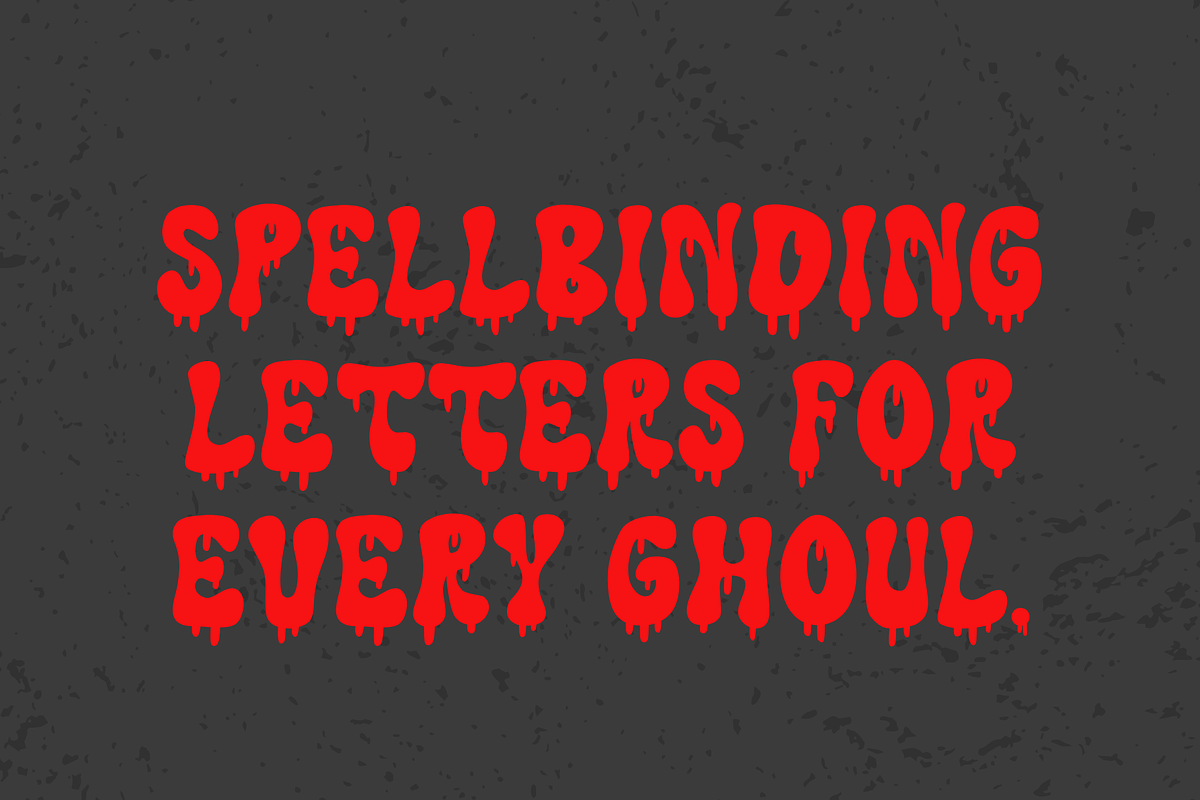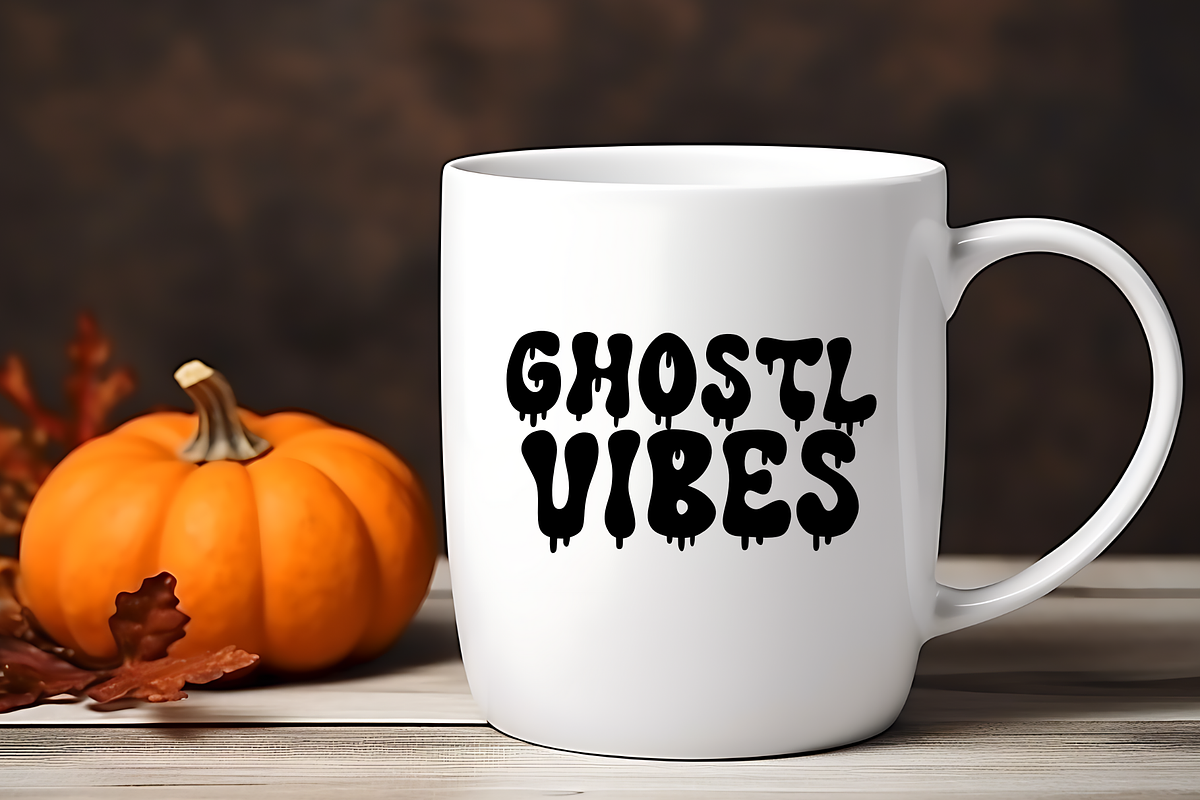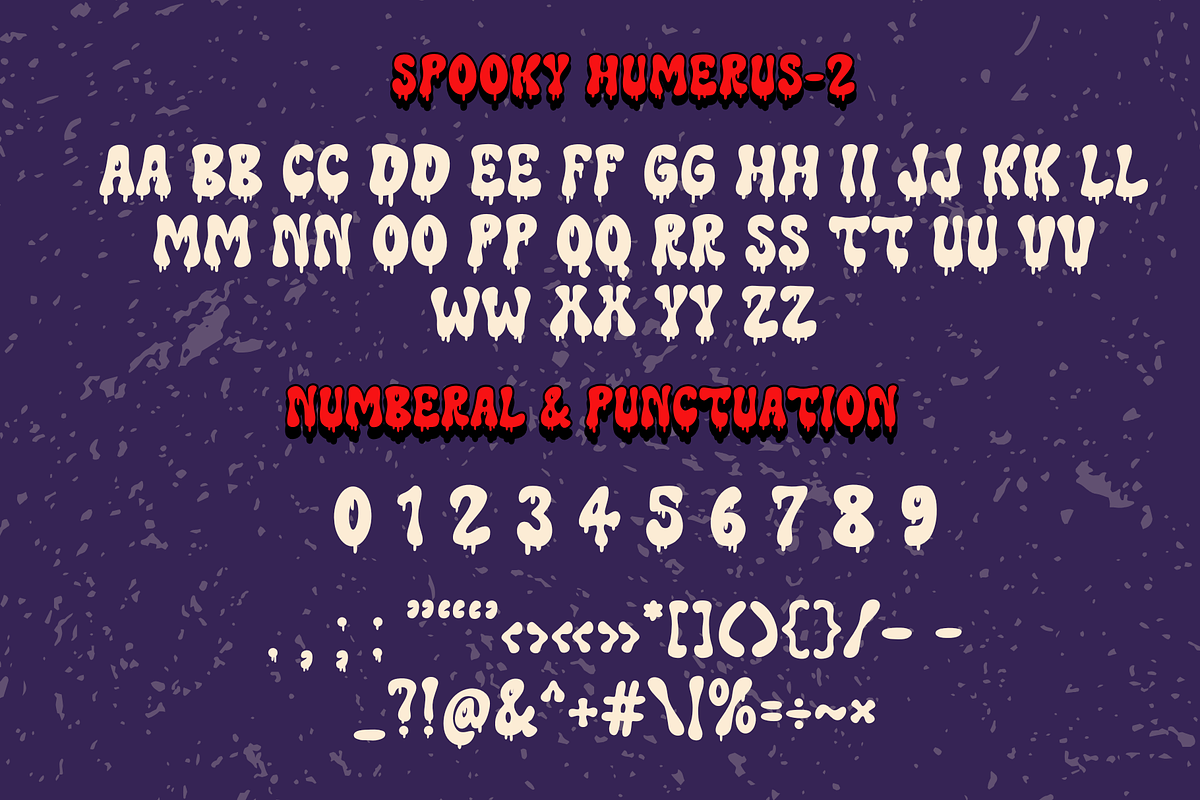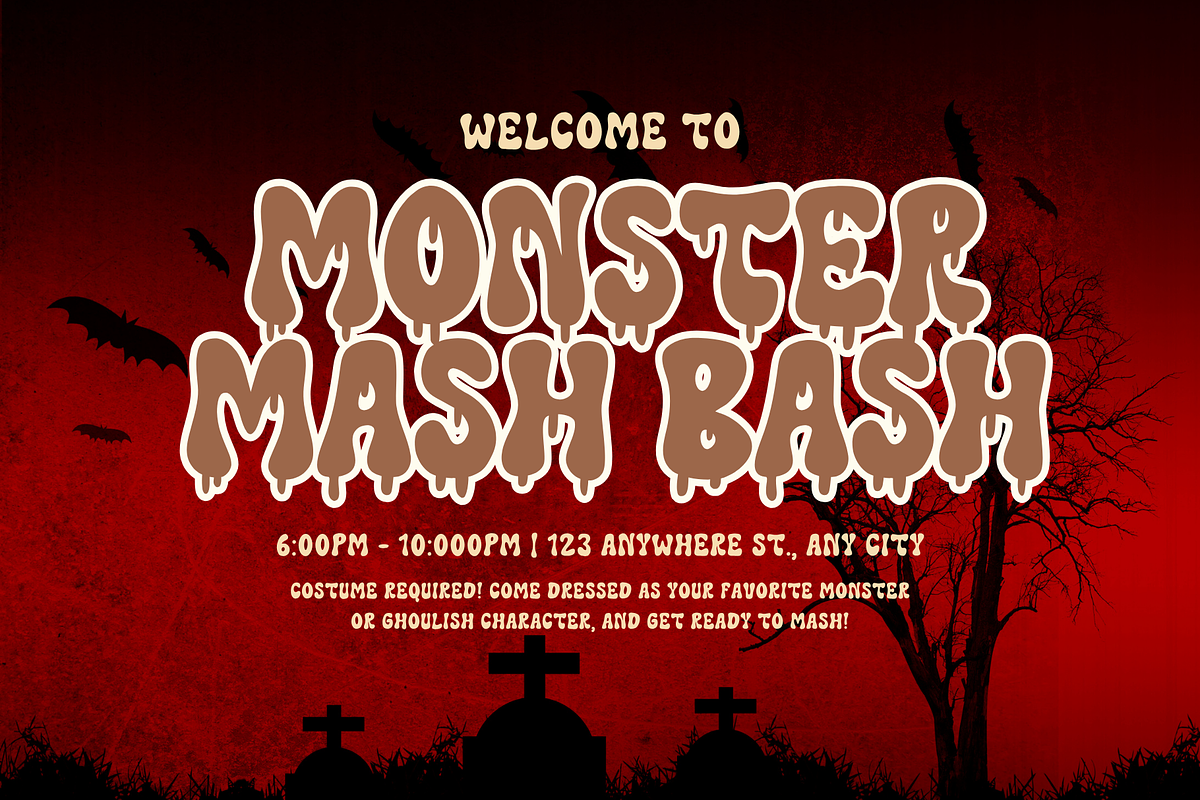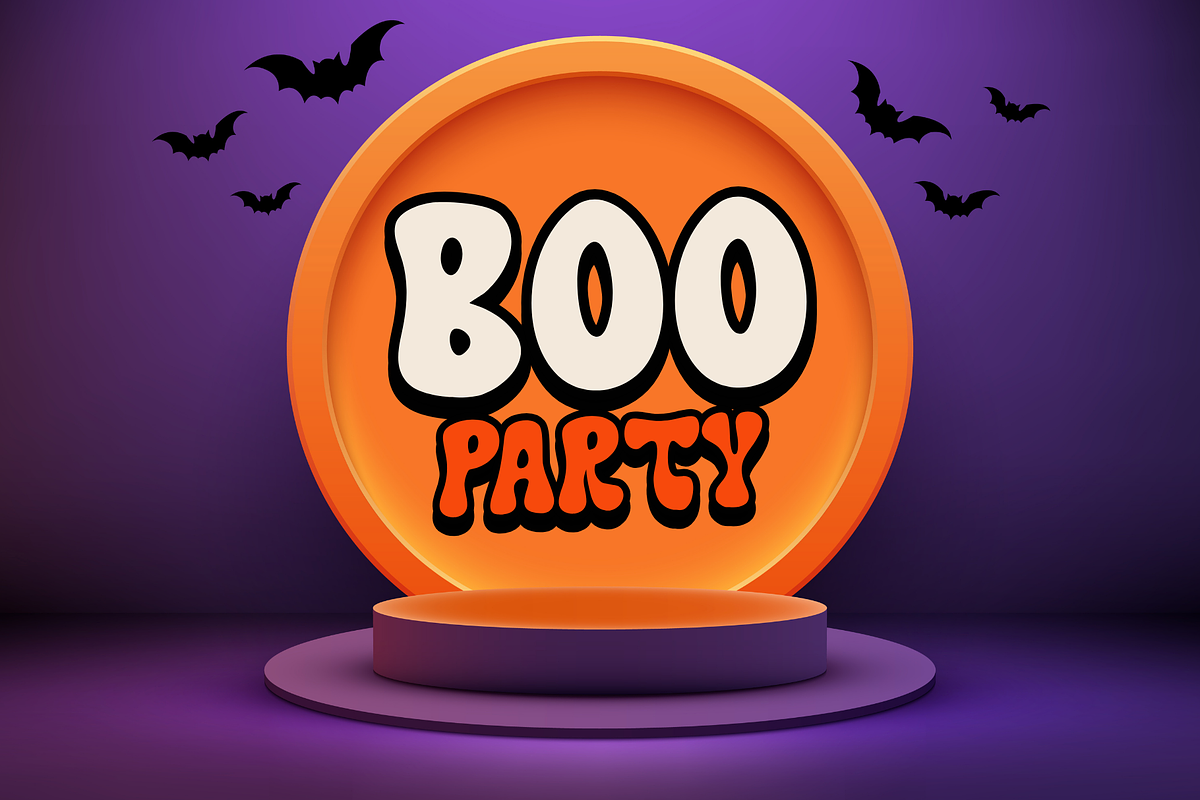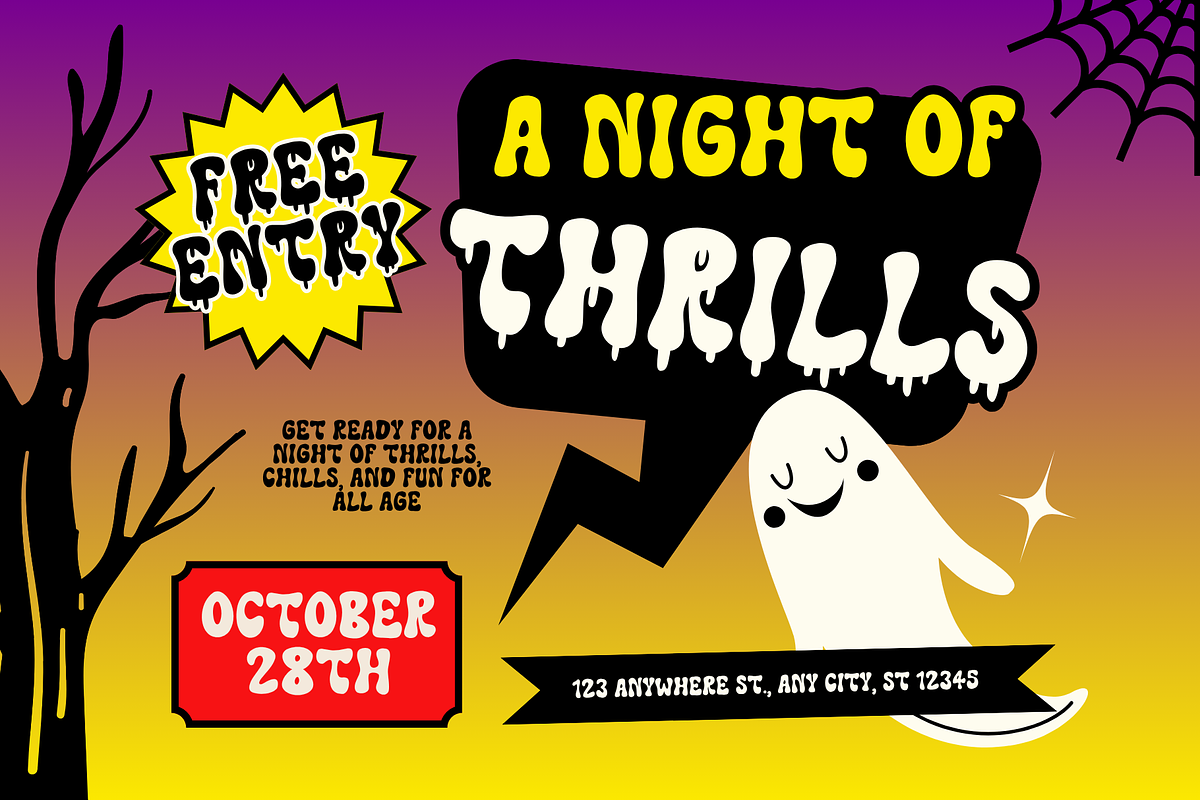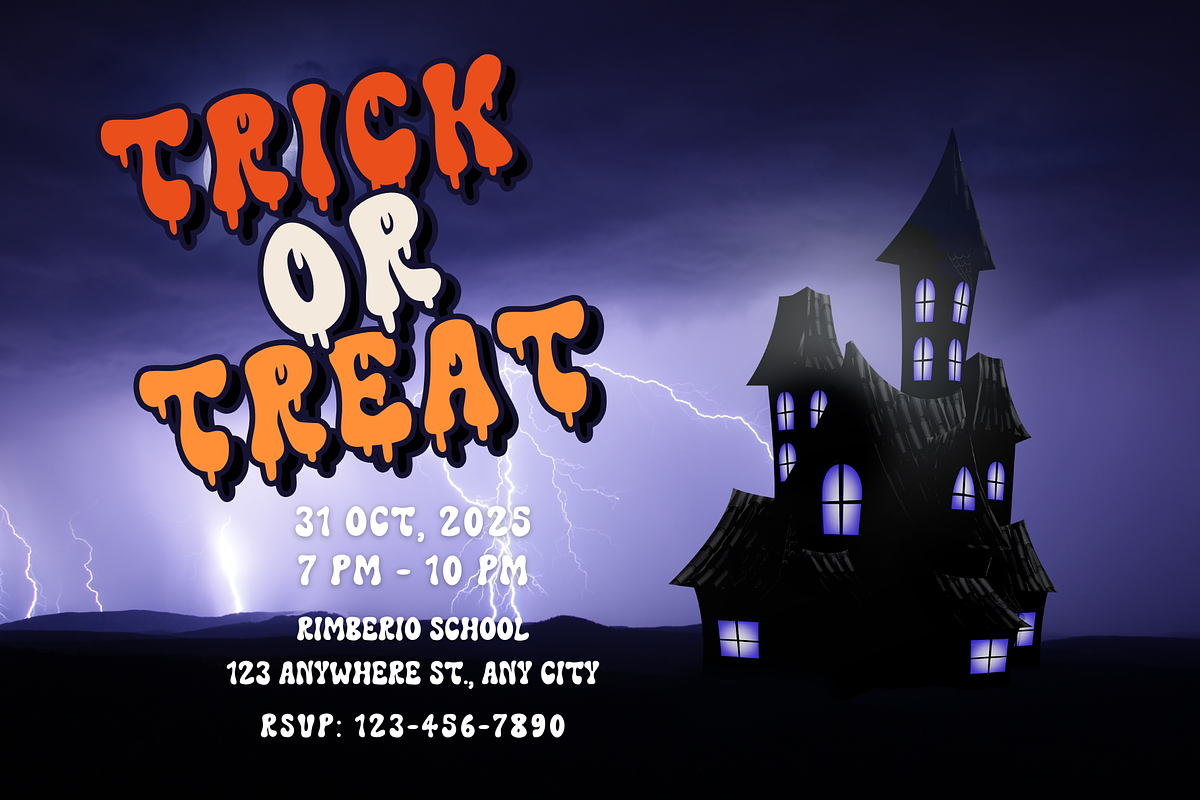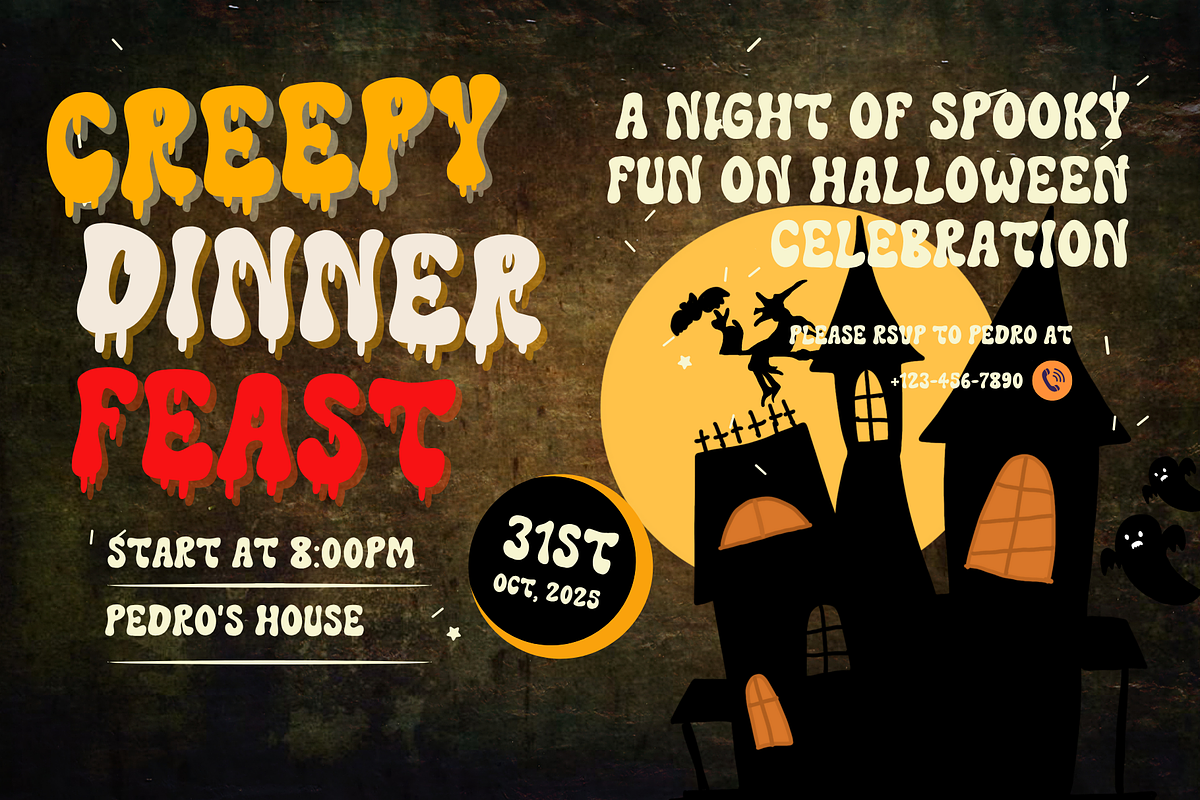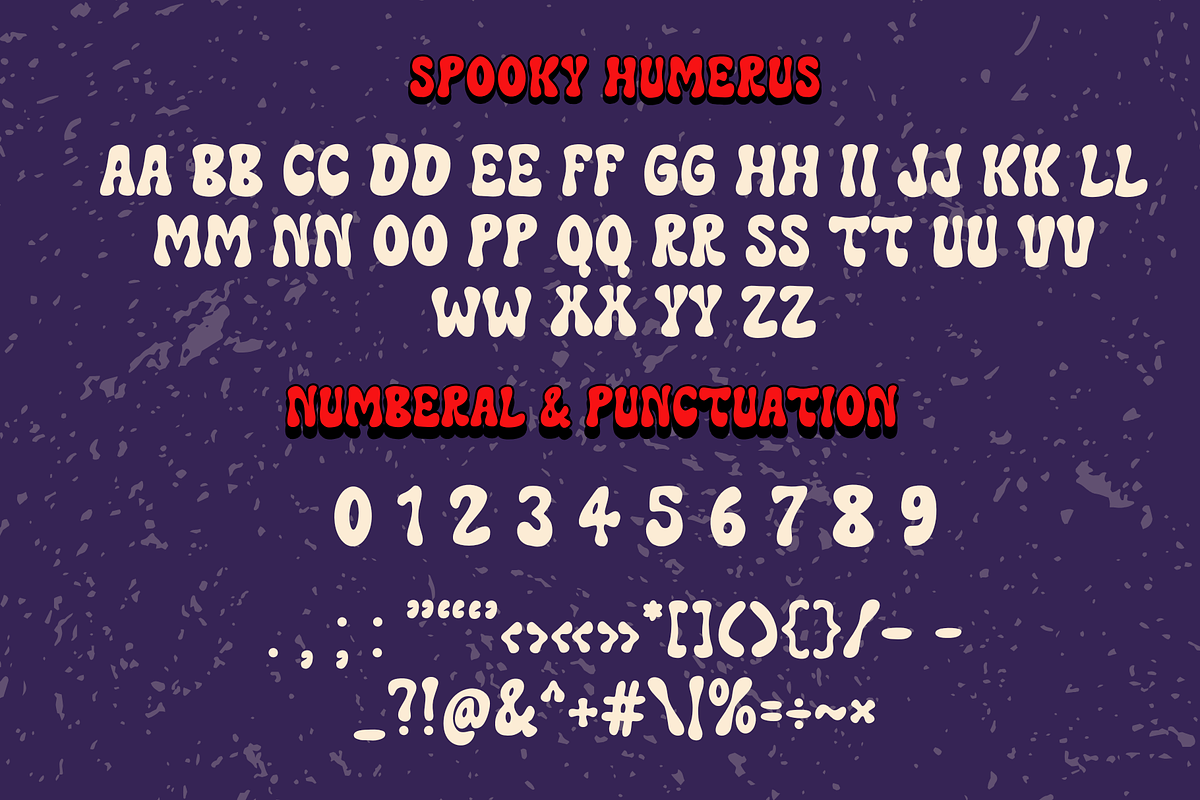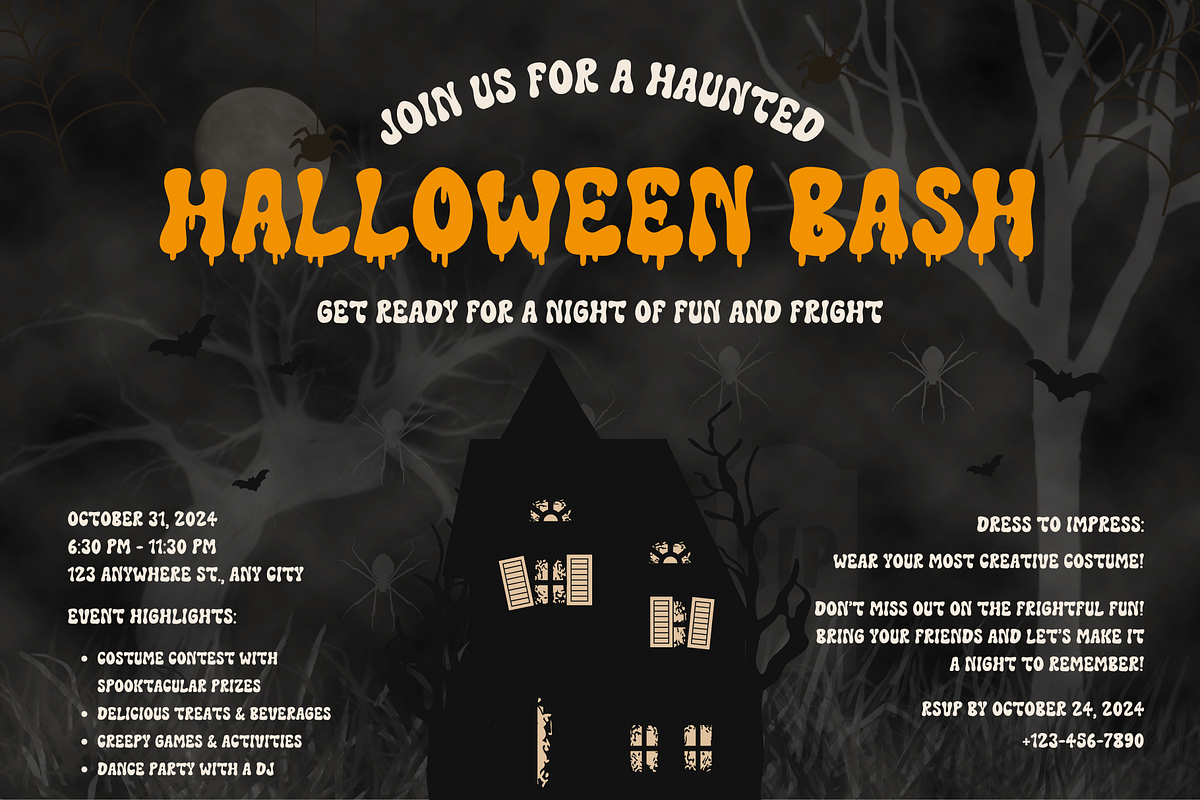
Spooky Humerus is a Halloween font
Spooky Humerus is a spooky Halloween font duo inspired by chilling ghost stories and eerie gothic vibes. With playful yet creepy curves, it perfectly captures the atmosphere of haunted houses, monsters, and midnight mysteries. Ideal for Halloween party posters, spooky invitations, horror movie titles, or any project that needs a touch of darkness and fantasy. This font will add a unique blend of scary and stylish energy to your seasonal designs.